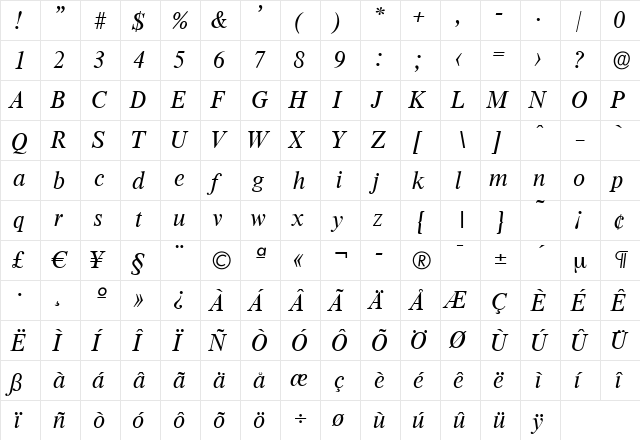
JonasBecker Italic
Design Context for JonasBecker Typeface
JonasBecker is a composed and adaptable typeface that performs quietly and consistently across a wide range of design contexts. Its italic angle brings a sense of urgency and motion to the letterforms.
Pro Tip: Use JonasBecker for emphasis, pull quotes, and subheadings where its slanted energy can add rhythm to the layout.